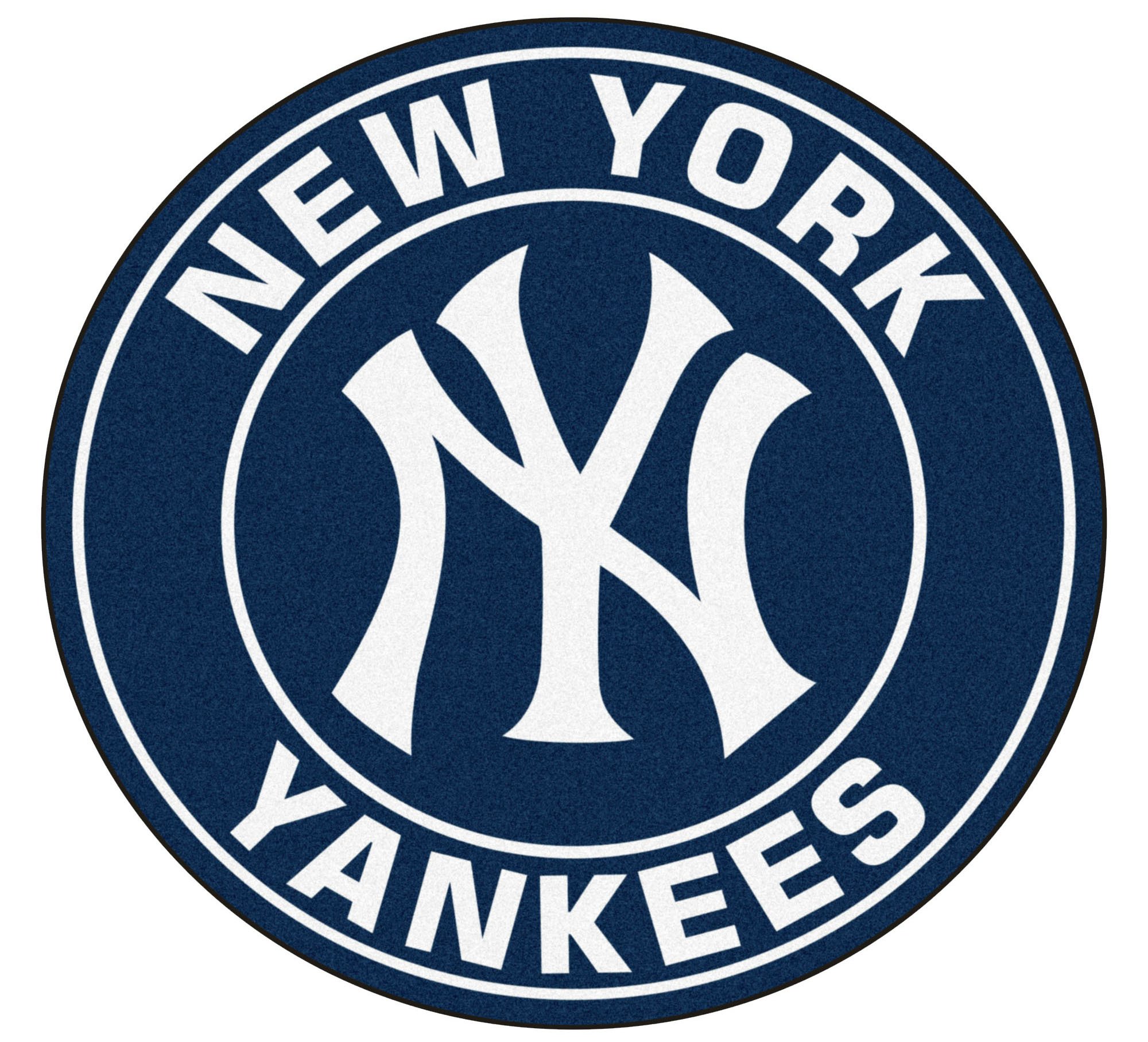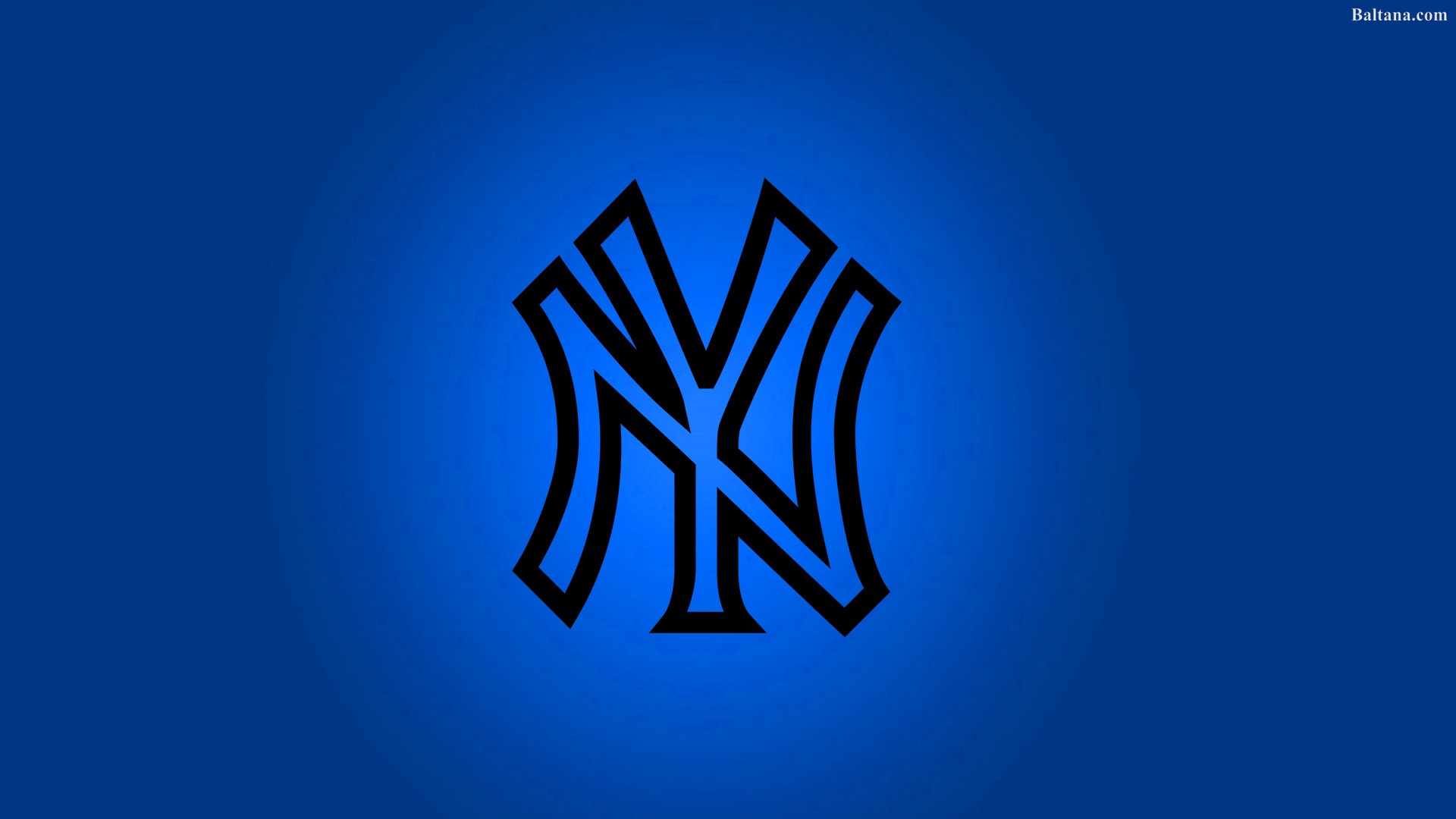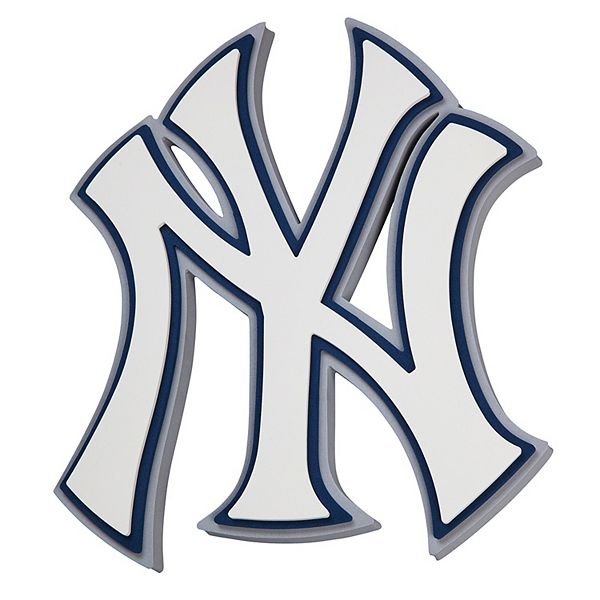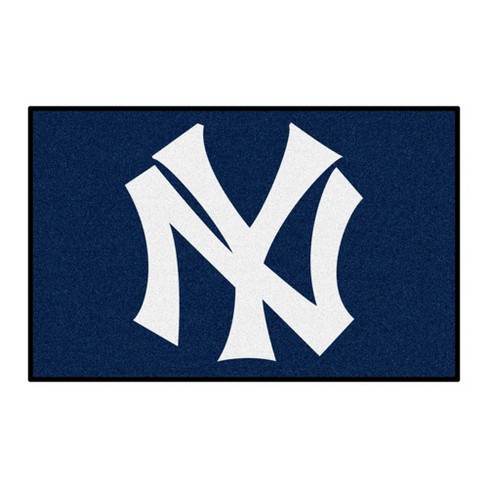
This is the current logo of the Yankees. The current status of the logo is active which means the logo is currently in use.
New york yankees logo font. A blue and red Uncle Sam hat rests on a baseball bat which. Adam is the creator and owner of New York Yankees Digest.
If you ask for the standard block font it will have the corners angled out and you do not want that one. Download the vector logo of the New York Yankees brand designed by New York Yankees in Encapsulated PostScript EPS format. What Is the Font Used in the I Love NY.
The ny yankees is one of eight original charter franchises of the american baseball league font of the ny yankees logo. Go to any local uniform customization shop and tell them that you want a 8 COLLEGIATE BLOCK font 2 it is the exact font that the Yankees use. Paragon Media The Evolution of Brand Logos.
New york yankees font and other styles. Though not in the design we all know now. The New York Yankees logo features a handwritten typeface.
New York Yankees Highlanders 1903. The closest I have seen is a font called Playball I. Font of the New York Yankees Logo.
30 off Add to Favorites. The latest New York Yankees logo design depicts baseball which contains a bat incorporated in the letter K of the wordmark Yankees. View information about the font used for the New York Yankees logo and links to download or buy the font.
New york is a new free font created by artem nevsky. Their first two logos were the modest representations of the original name and only in 1903 the legendary NY monogram appeared. According to Famous Logos the font of the primary New York Yankees team logo is a handwritten typeface.
The current status of the logo is active which means the logo.